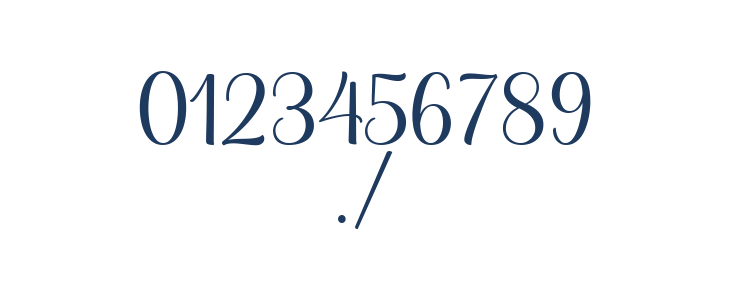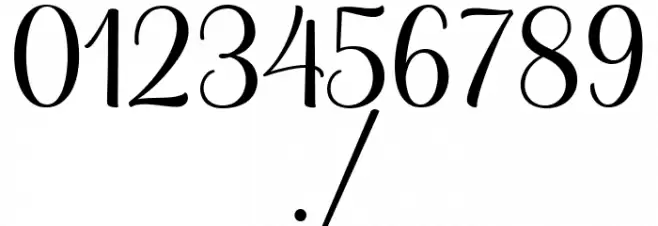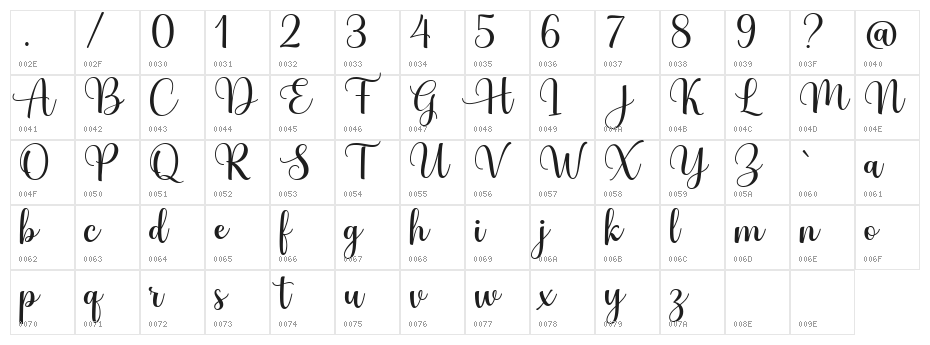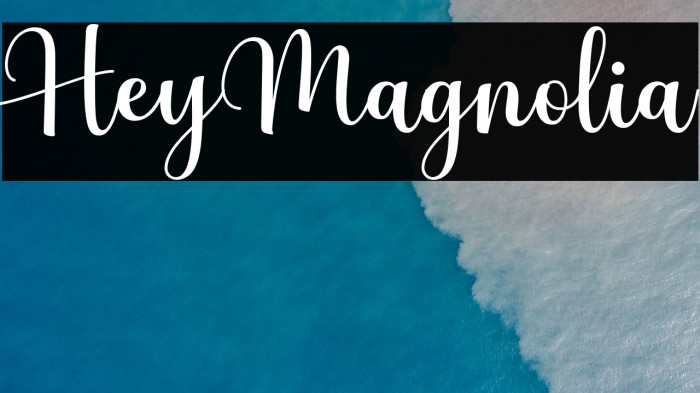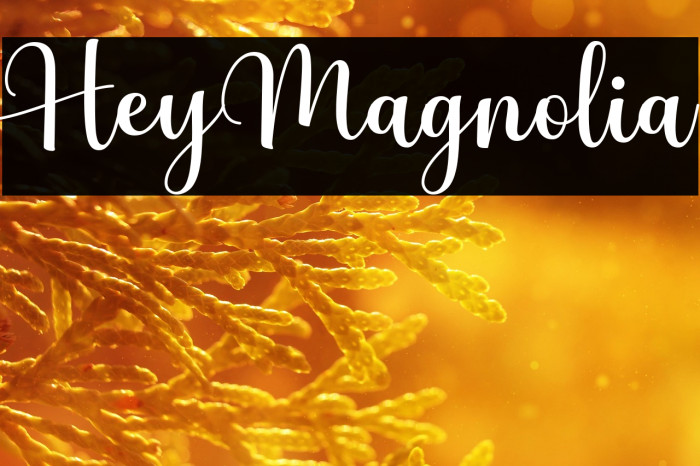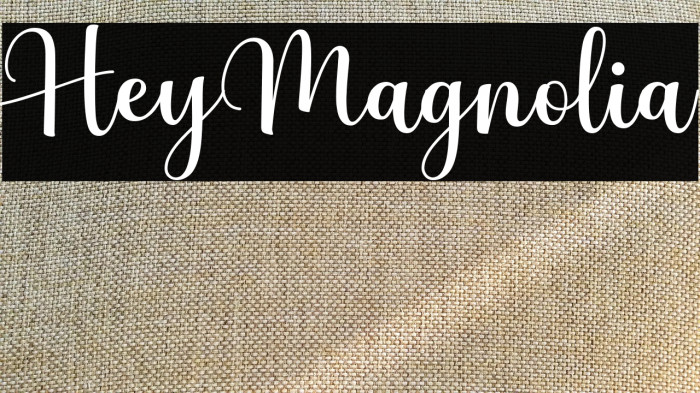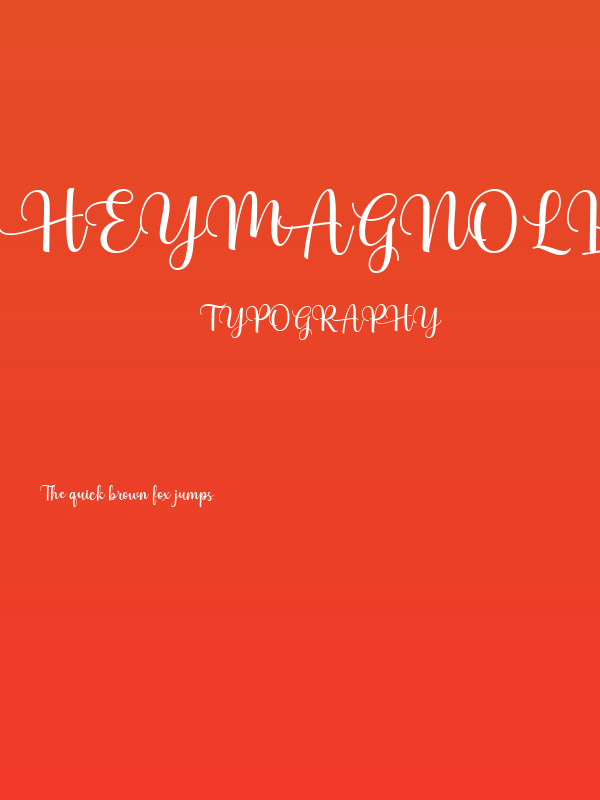
HeyMagnolia Font
HeyMagnolia Description
This font features a charming and elegant script style with a handwritten feel. The uppercase letters are gracefully connected with smooth, flowing lines, while the lowercase letters exhibit a playful bounce, adding a whimsical touch. The numerals are clear and stylish, maintaining the overall aesthetic of the script. Special characters are thoughtfully designed to complement the alphabet, ensuring versatility in various design contexts. The font's strokes vary in thickness, providing a medium contrast that enhances readability while maintaining its decorative appeal. Its overall style is modern yet timeless, making it suitable for a wide range of creative projects.
| Use Case | Logos, Invitations, Social Media |
| Proposed Projects | Ideal for wedding invitations, greeting cards, branding, logos, and social media graphics. |